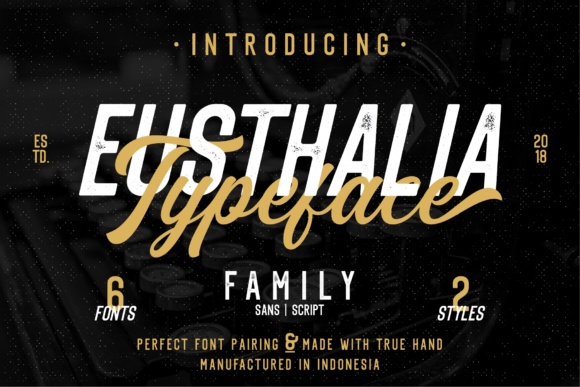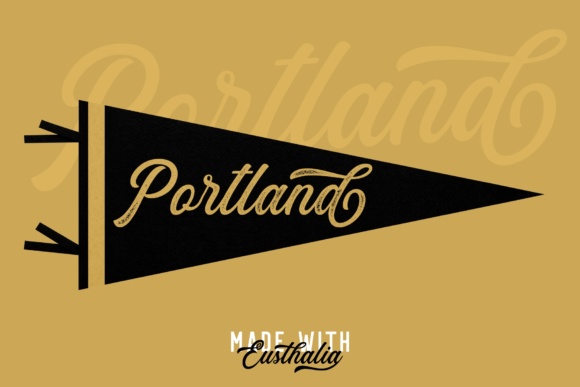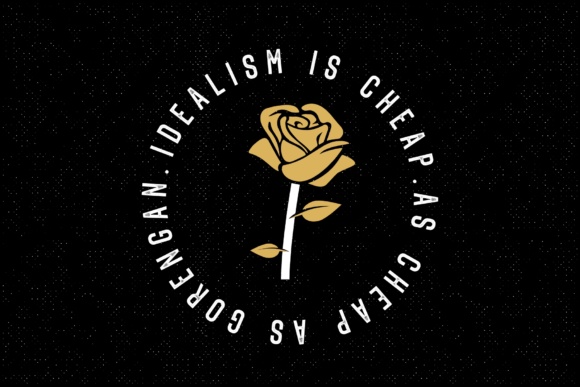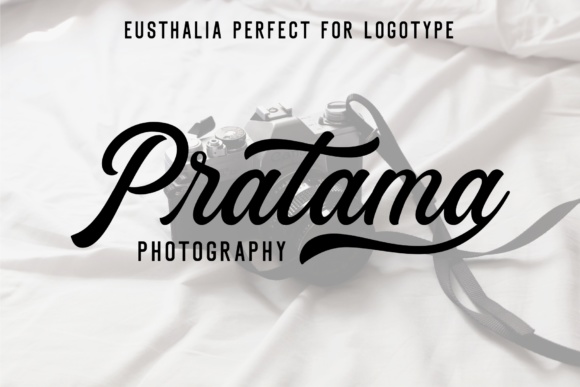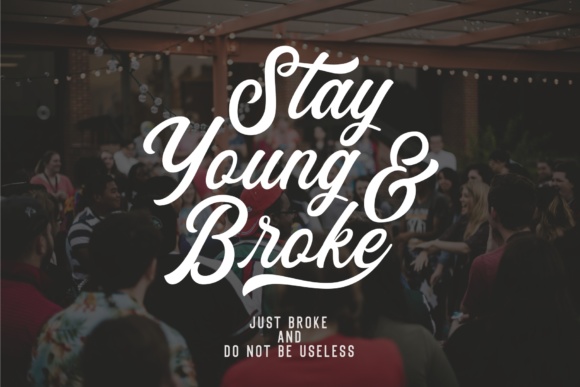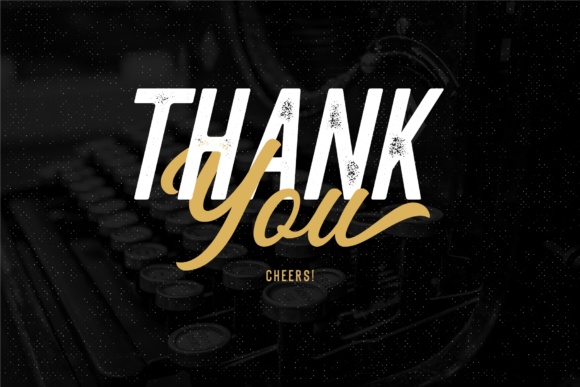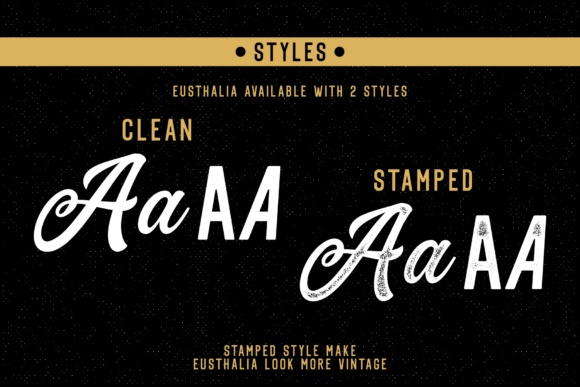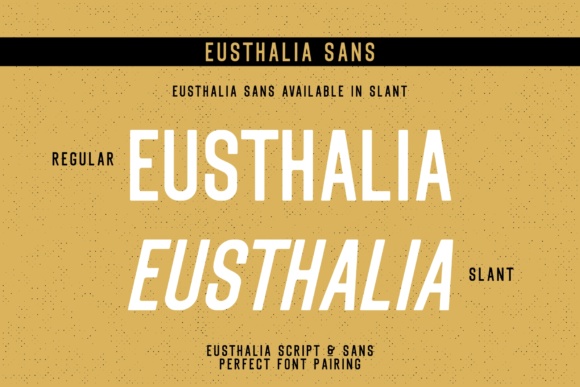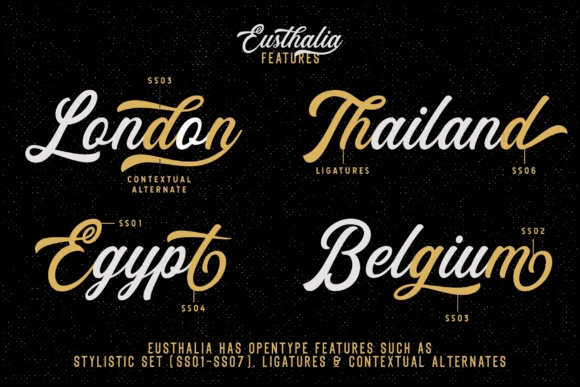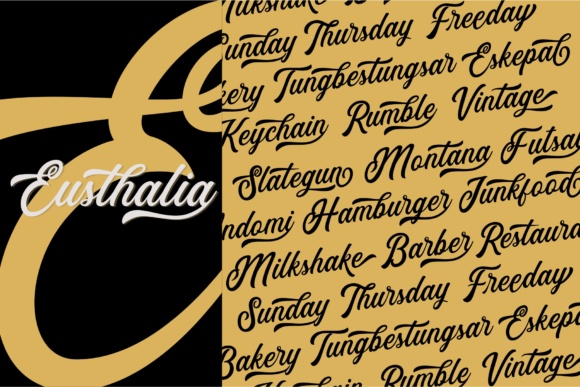
Eusthalia Family Font
About Eusthalia Family Font
The Eusthalia is a family of 6. It comes with script and sans versions and has two styles: clean and stamped. The styles are perfect for vintage designs, posters, magazines and advertising.